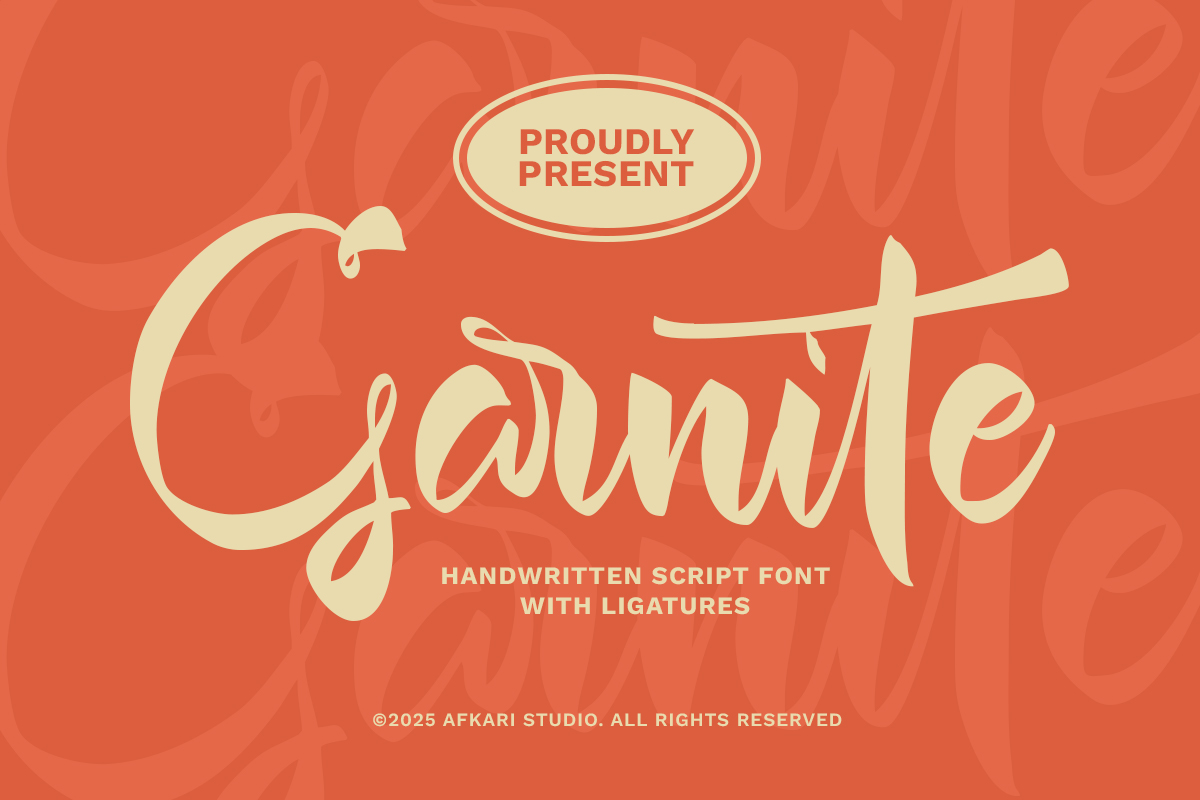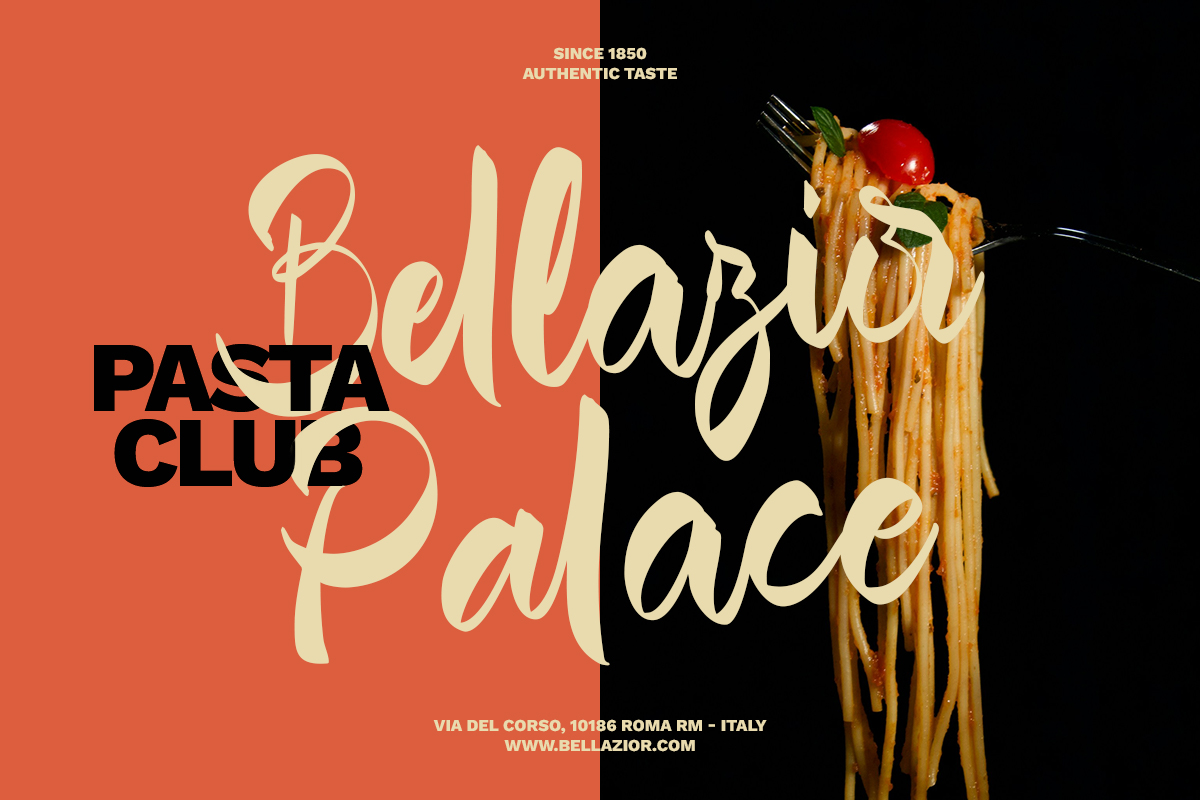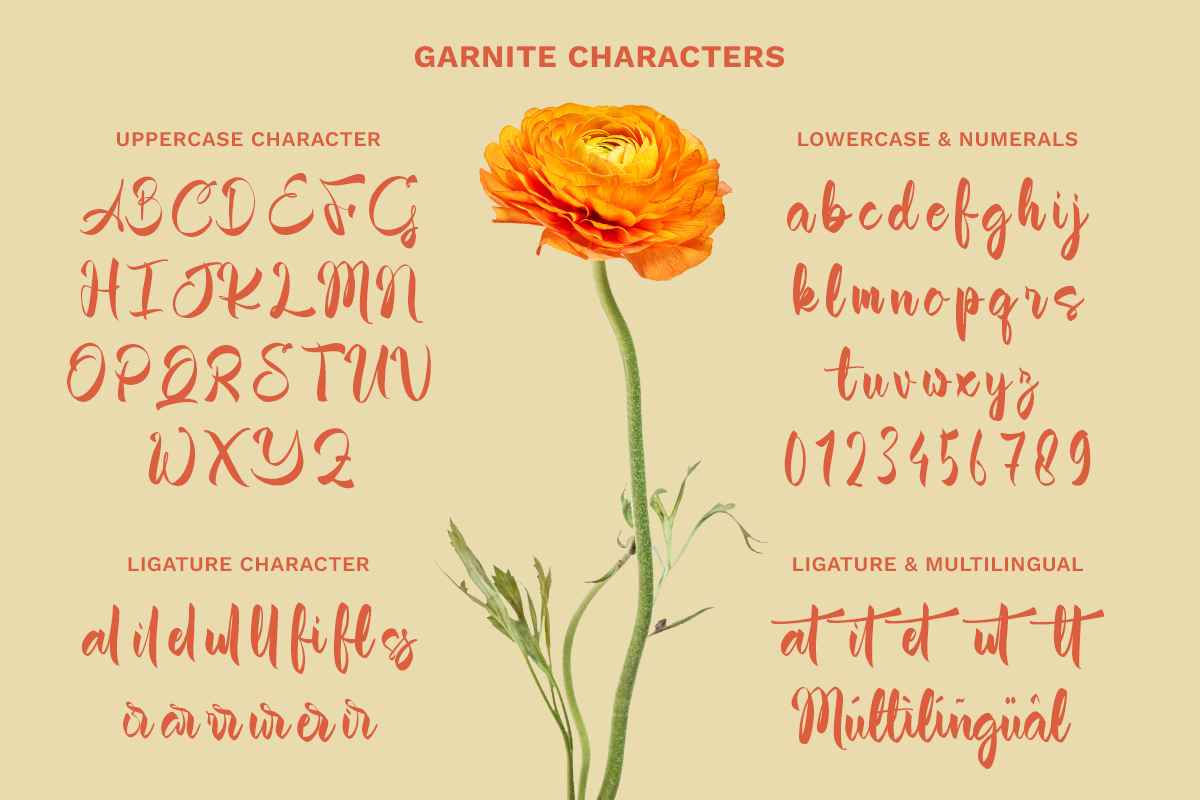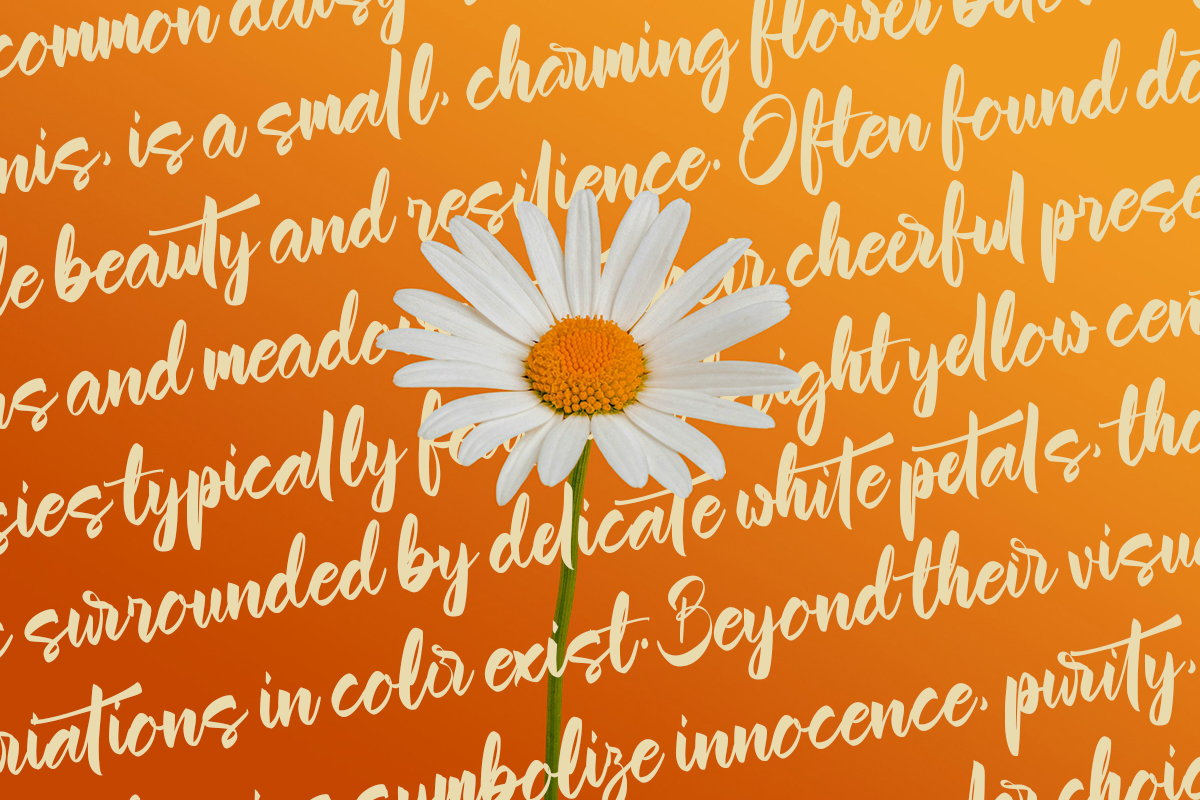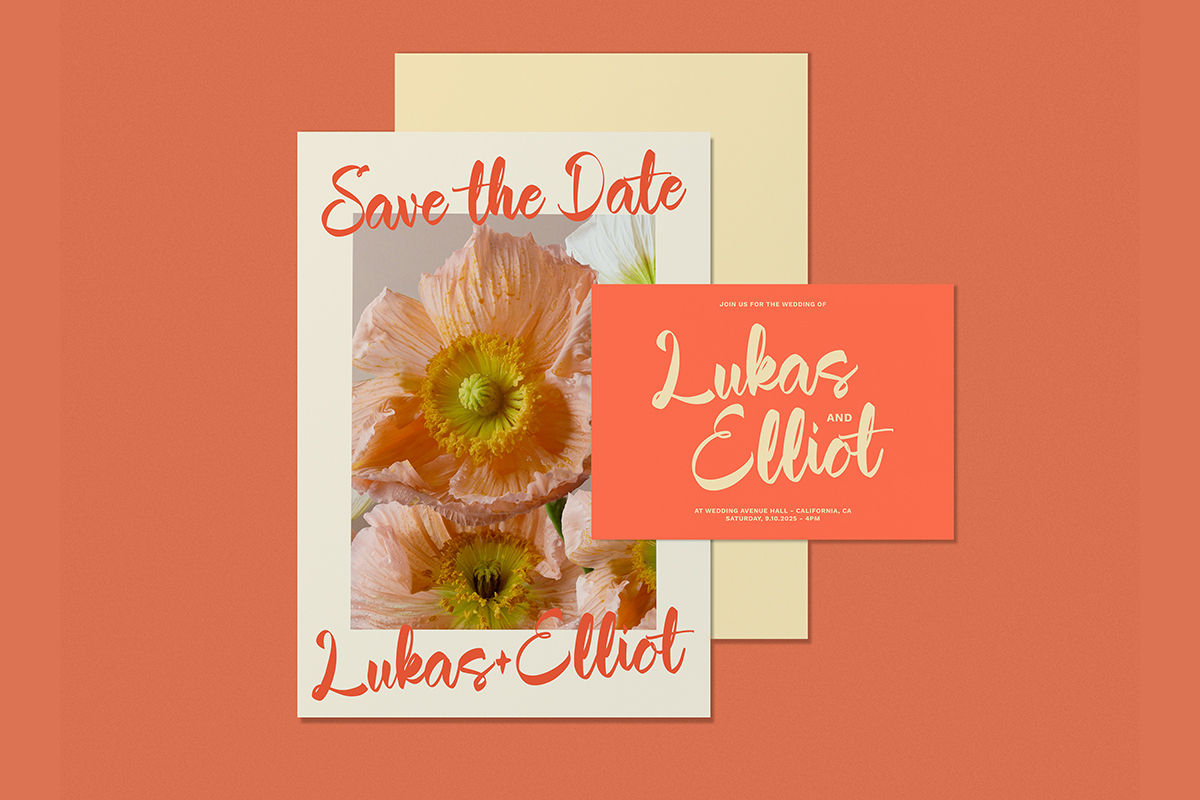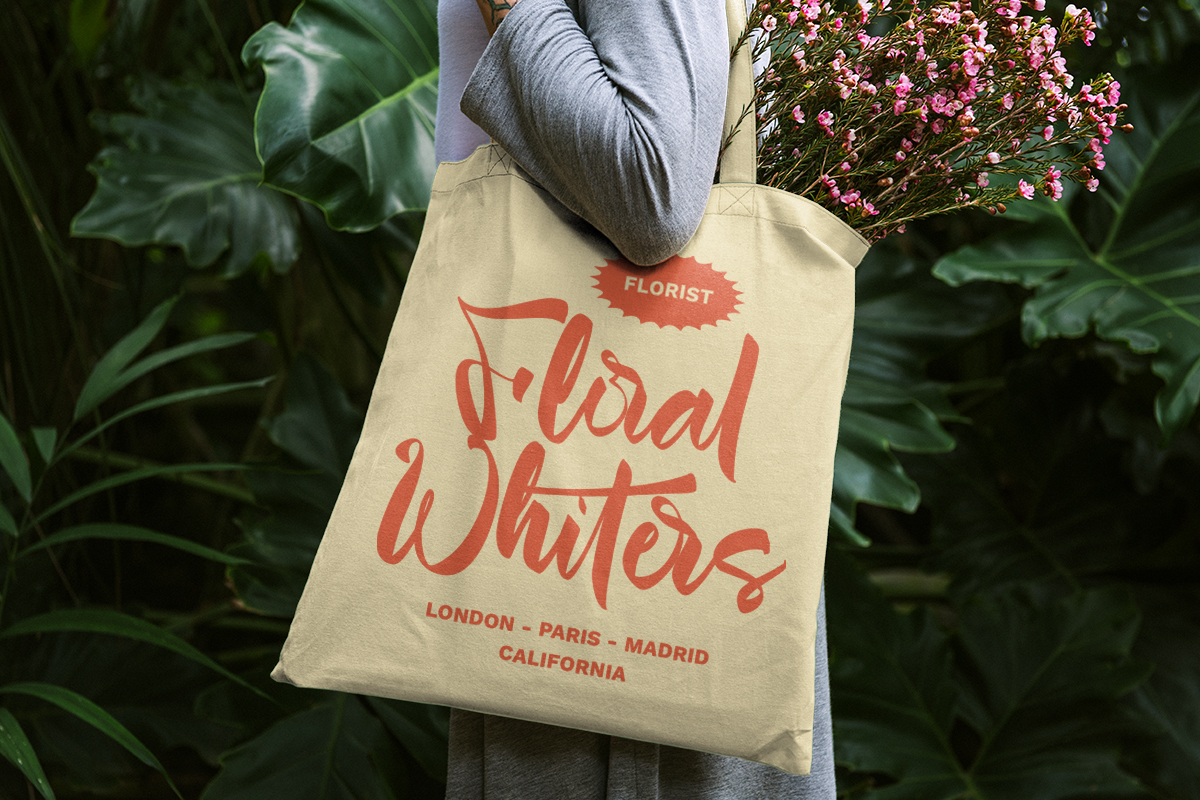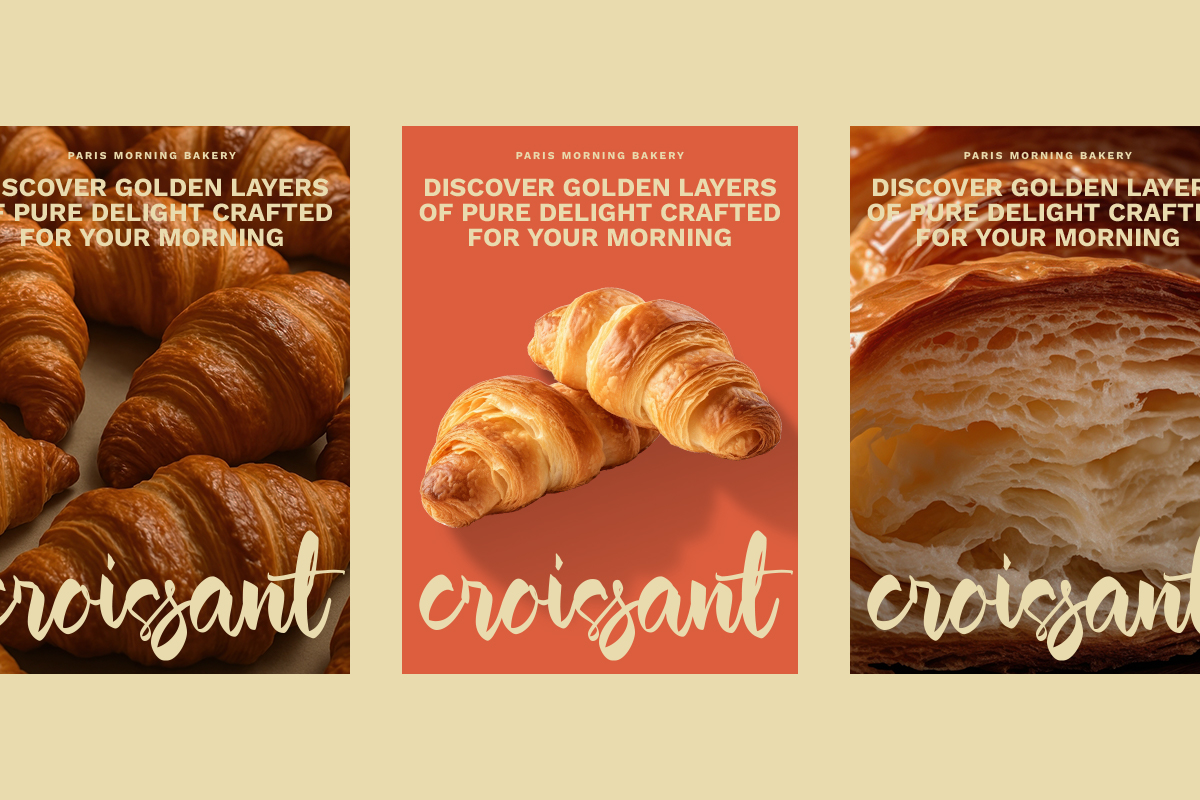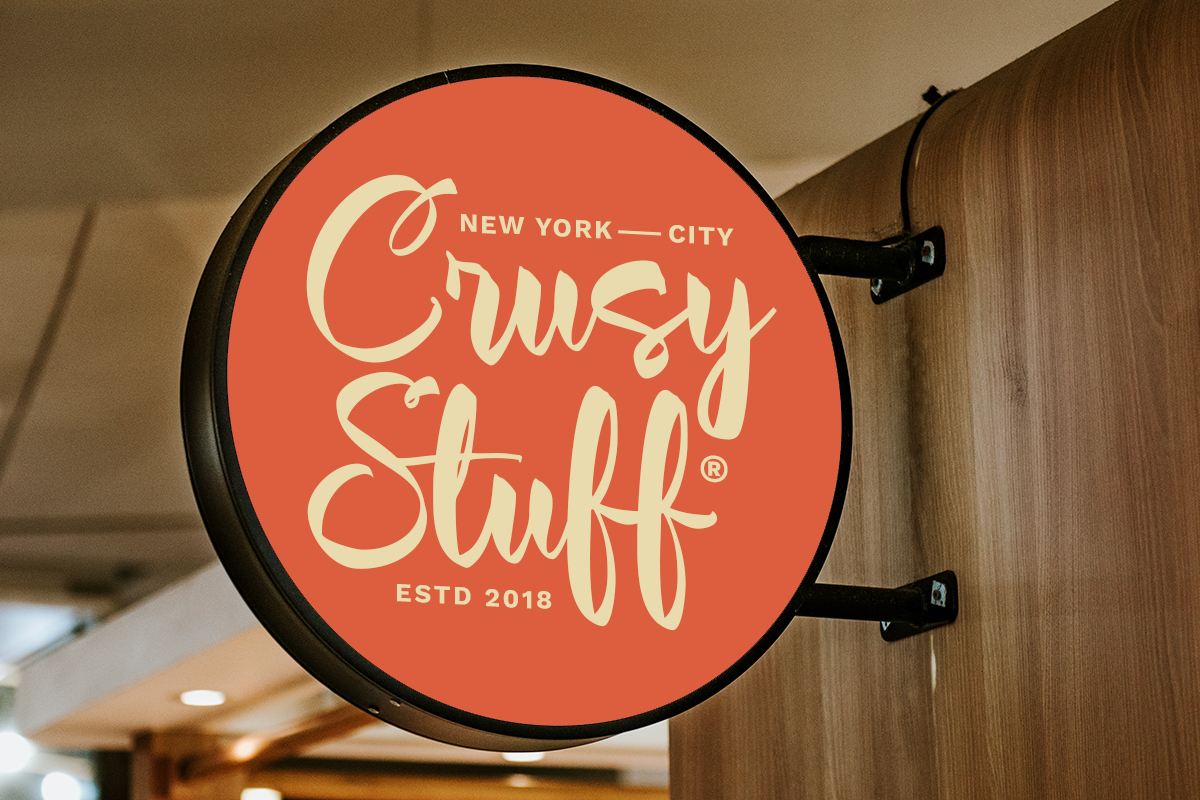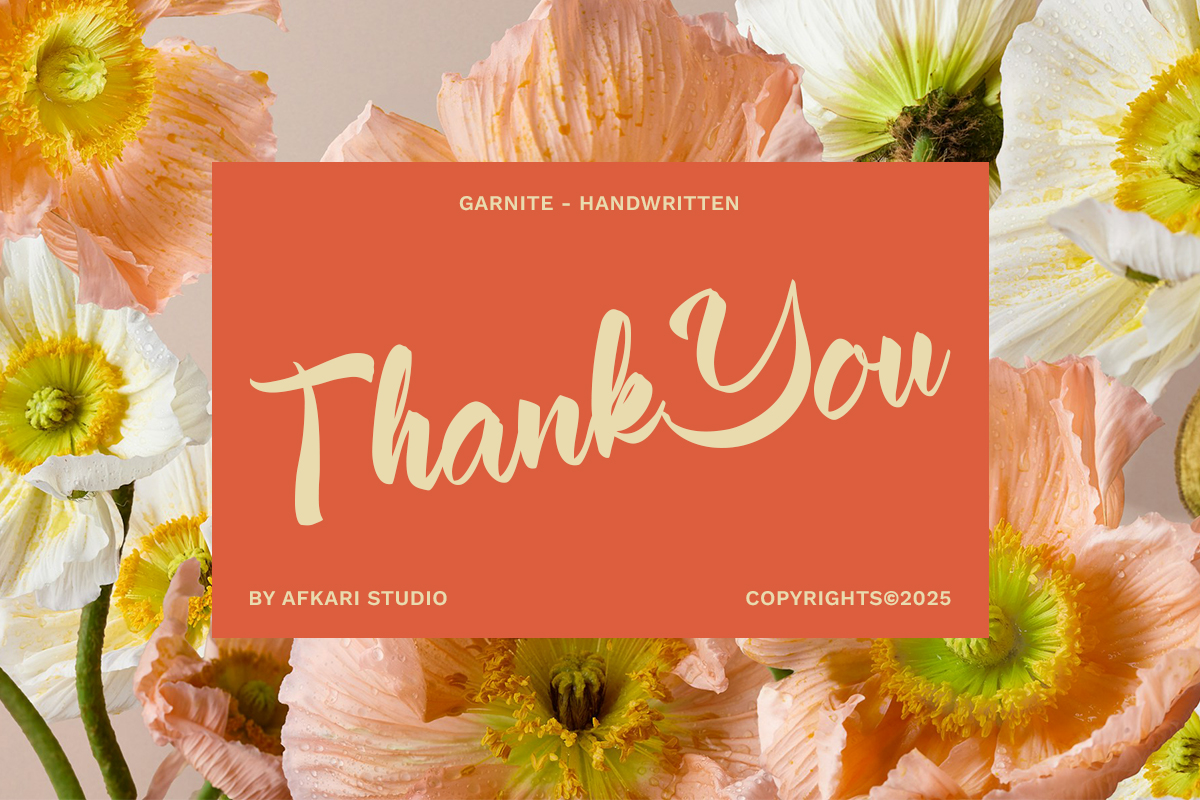
Garnite – Handwritten Script Font brings a touch of elegance and authenticity to your designs. Crafted to feel like real handwriting, Garnite flows with natural curves and gentle strokes that add a warm, personal feel to any project.
It’s the kind of font that feels like a signature—refined yet relaxed, perfect for branding, wedding invitations, logos, quotes, and social media graphics. Garnite blends modern charm with handwritten simplicity, making it versatile for both casual and professional design needs.
Whether you’re creating a feminine logo or heartfelt stationery, Garnite gives your work a personal voice that feels human, stylish, and full of personality.
Features;
- Uppercase, Lowercase, Number, and Punctuation
- Special Alternates and ligatures
- Mültîlíñgúãl Sùppört for; ä ö ü Ä Ö Ü ß ¿ ¡